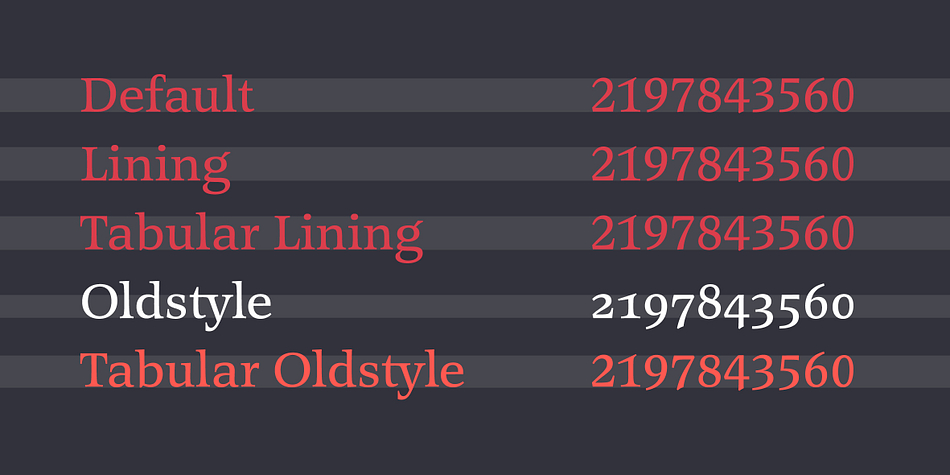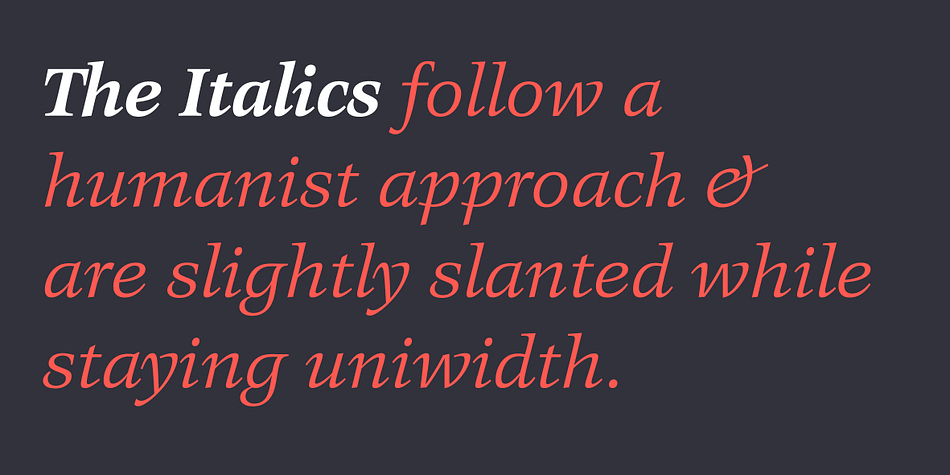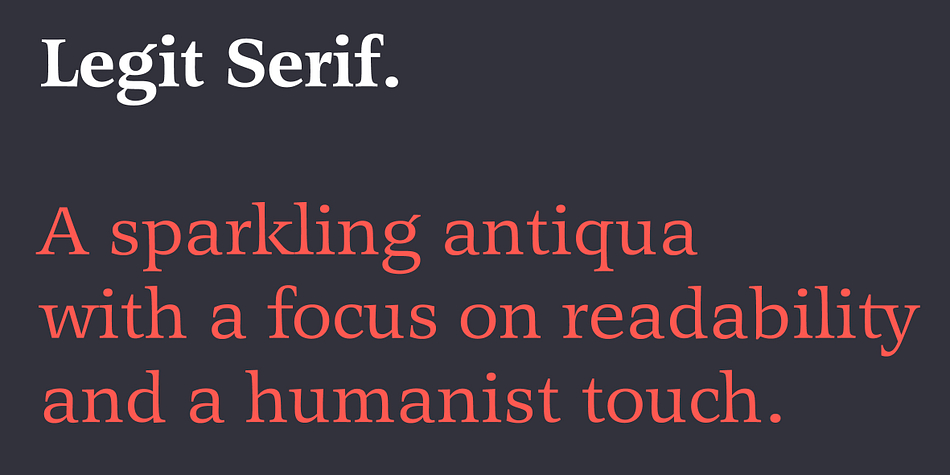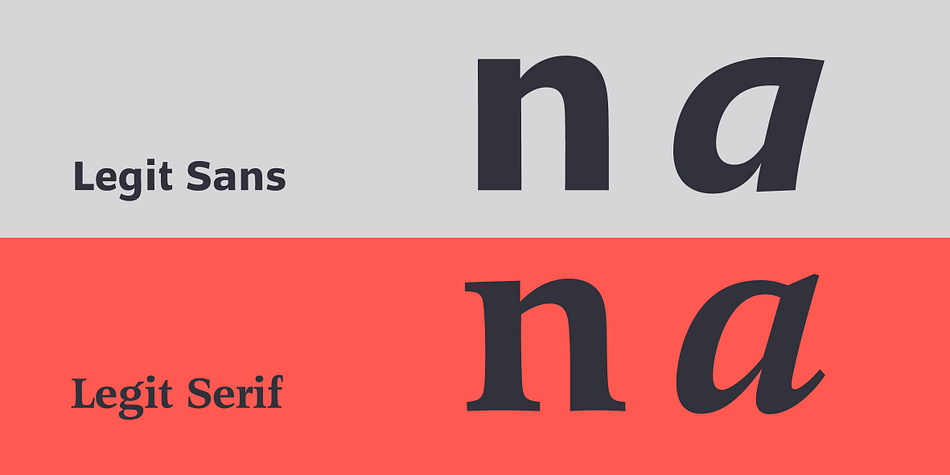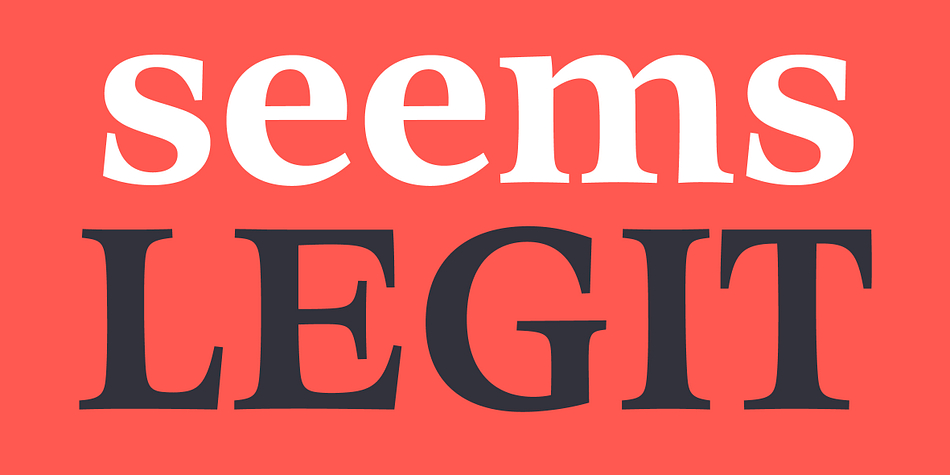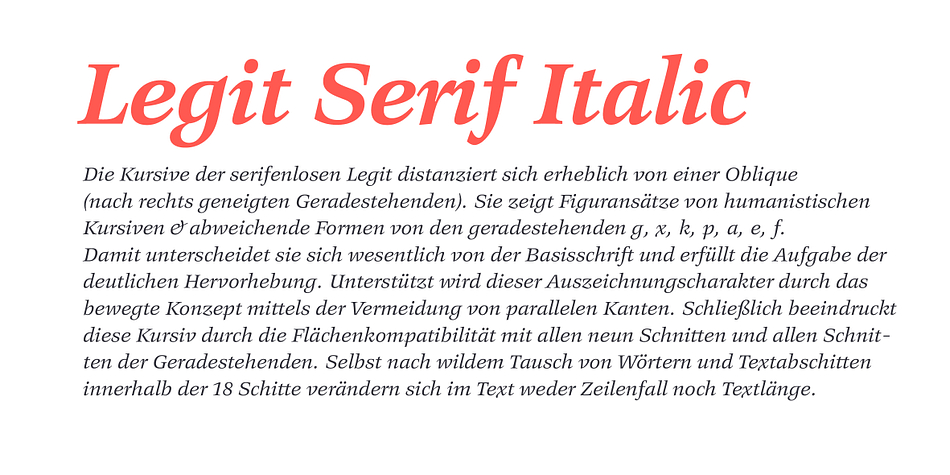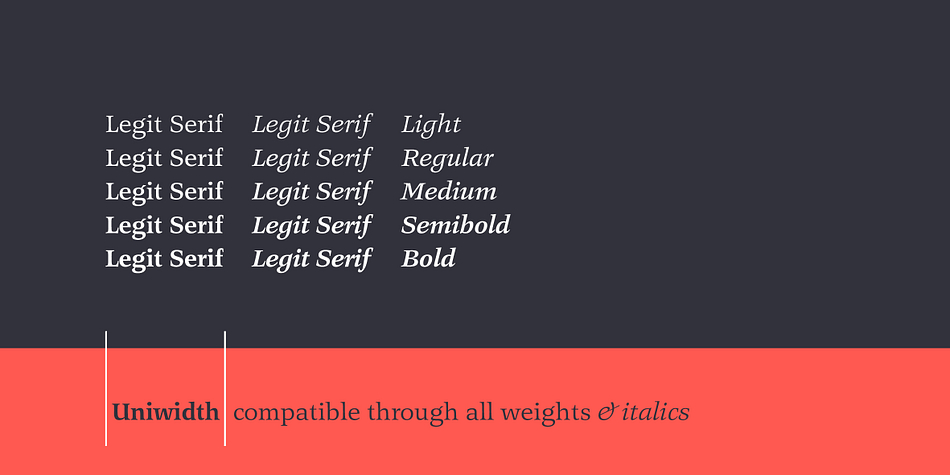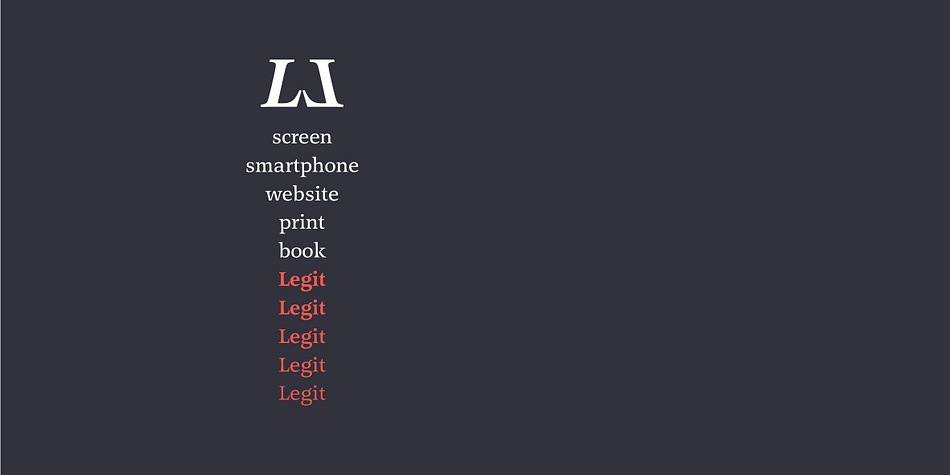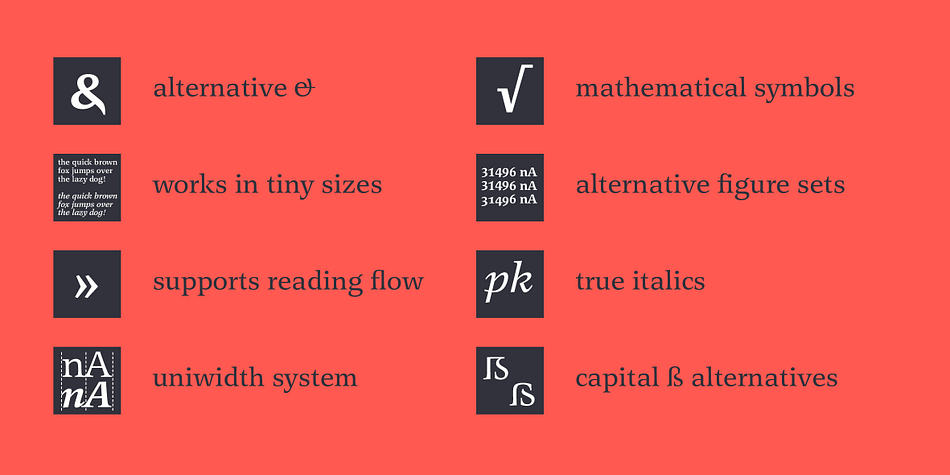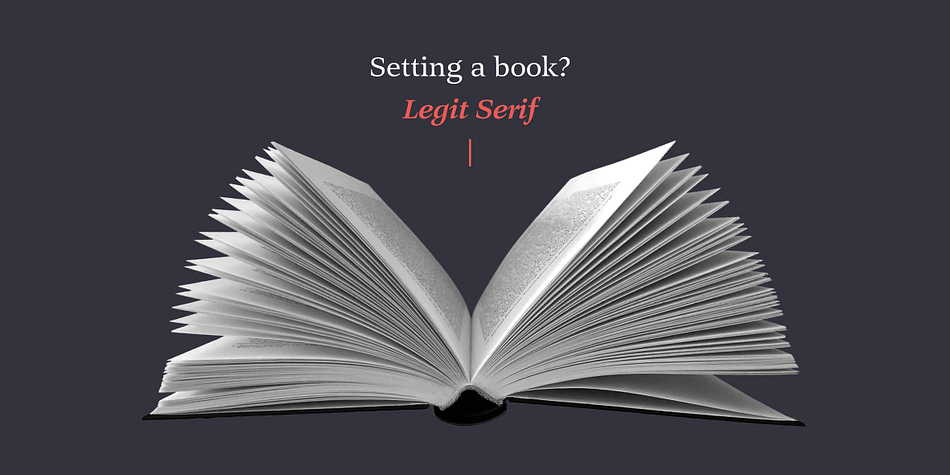
Legit Serif
Designed by Hans Heitmann, Legit Serif is a serif font family. This typeface has ten styles and was published by Finaltype.
Legit Serif is an antiqua text font that features both optimal readability in small sizes as well as elegant aesthetics in display use. The standout feature of this typeface is its uniwidth system: all 18 styles are 100% compatible in width and remain swappable without altering the layout. It is also compatible with our Legit Sans family which shares the same uniwidth system.
Our Finaltype spacing provides optimal type color and readability, even in all-caps typesetting. The typeface comes with a set of ligatures and stylistic alternates as well as strong and clear accents to support more than 36 languages.